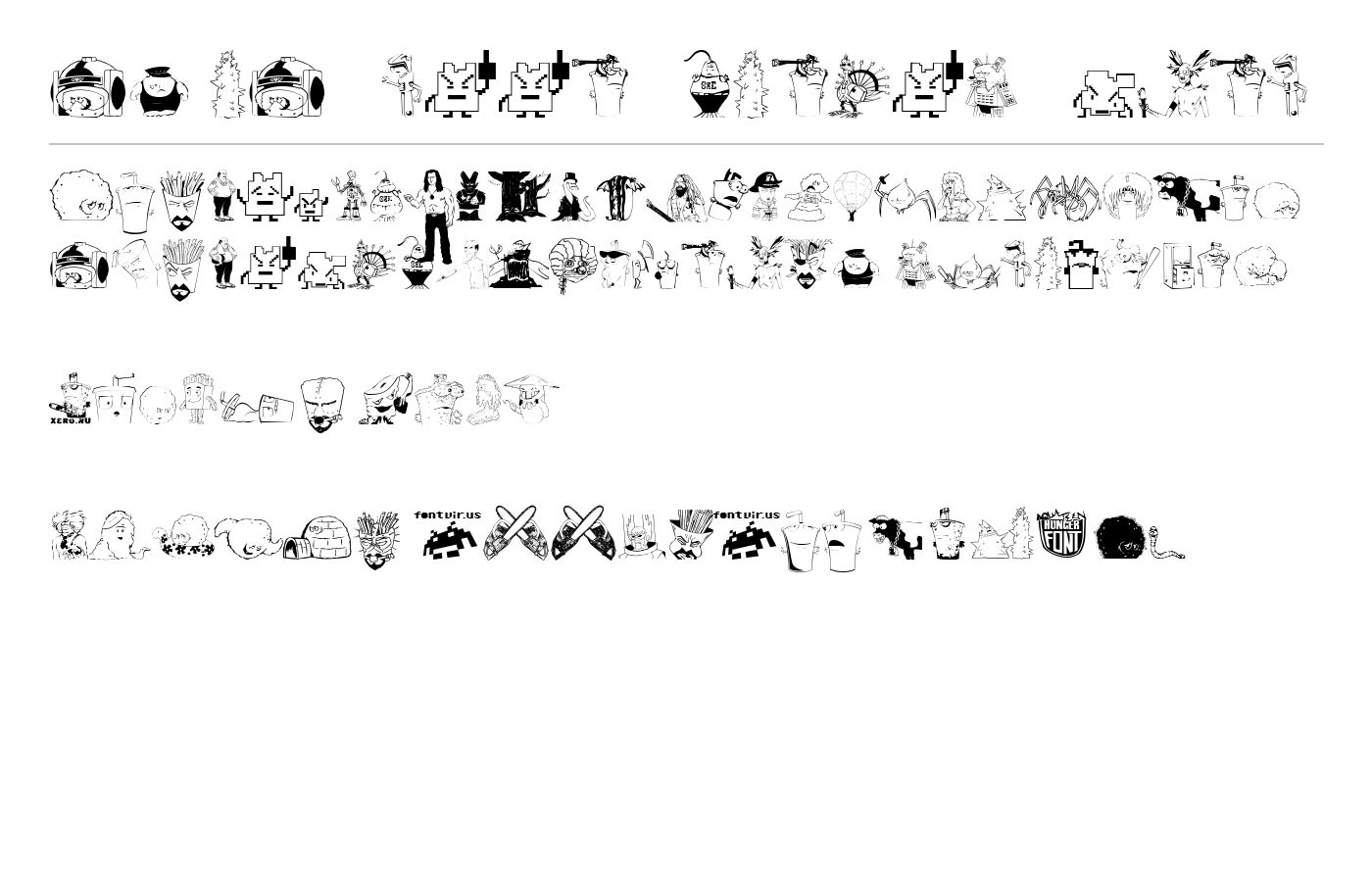
Dingbats Font is a playful and highly decorative symbol typeface featuring a diverse collection of quirky, cartoon-like icons and characters instead of traditional letters. Its unique and whimsical illustrations make it an excellent choice for creative projects, logos, or eye-catching graphic elements that add personality and fun. This font works best for designs needing a bold, visual punch rather than conventional text, perfect for posters, digital art, and informal branding.
About dingbats Font